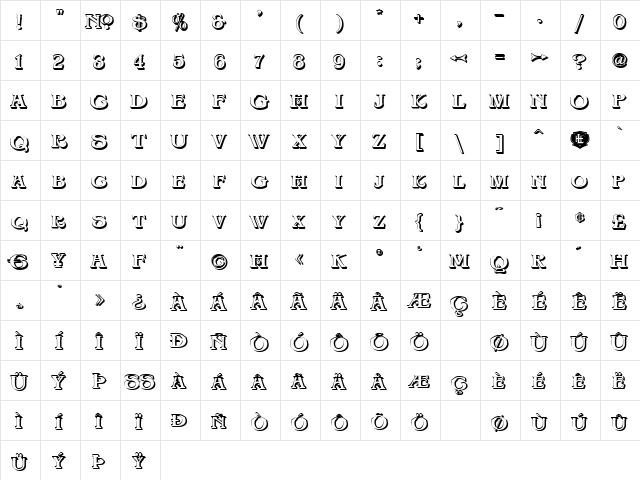
LHF Big Top SHADOW Regular
Design Context for LHF Big Top SHADOW Typeface
LHF Big Top SHADOW is built around its visual character rather than neutral utility — its distinctive forms are designed to make an impression at display sizes.
Font Pairing: Pair with a clean neutral sans-serif for body copy to let LHF Big Top SHADOW's character lead without overwhelming the composition.
Pro Tip: Use LHF Big Top SHADOW exclusively at display sizes — it was designed to be seen, not read at length. Let a neutral companion handle body copy.